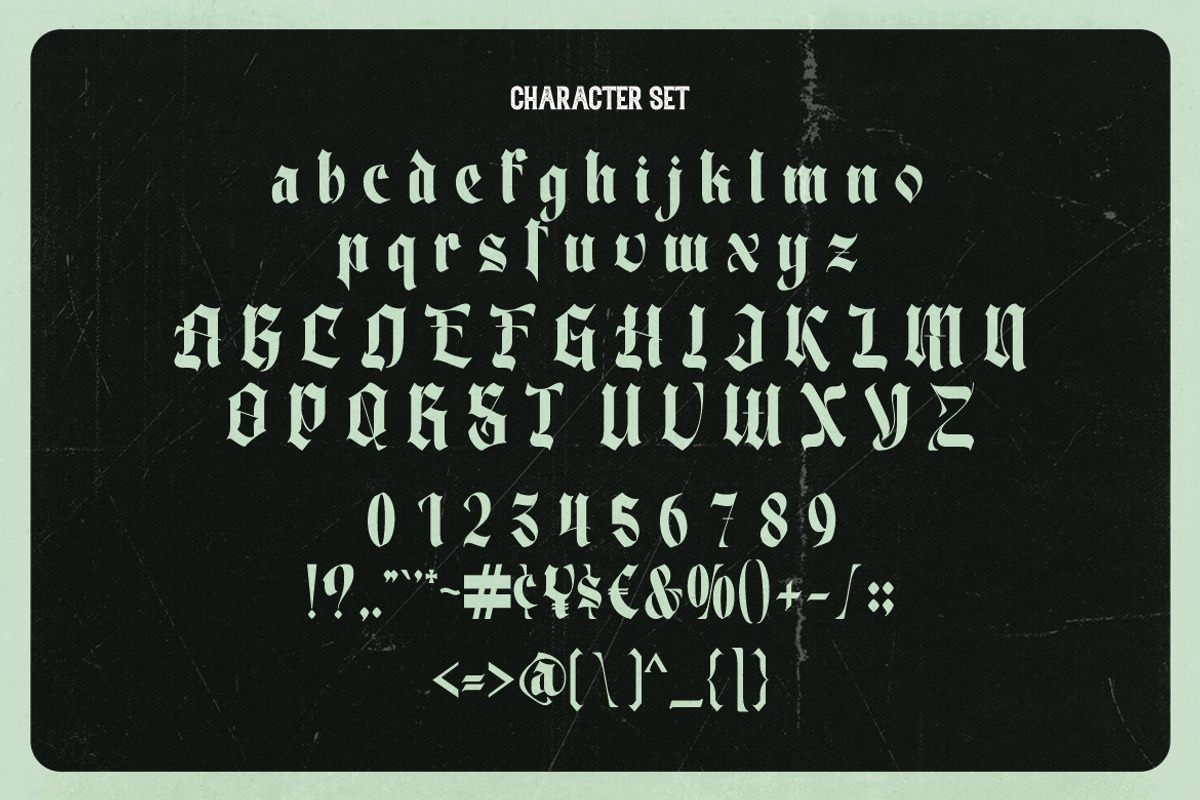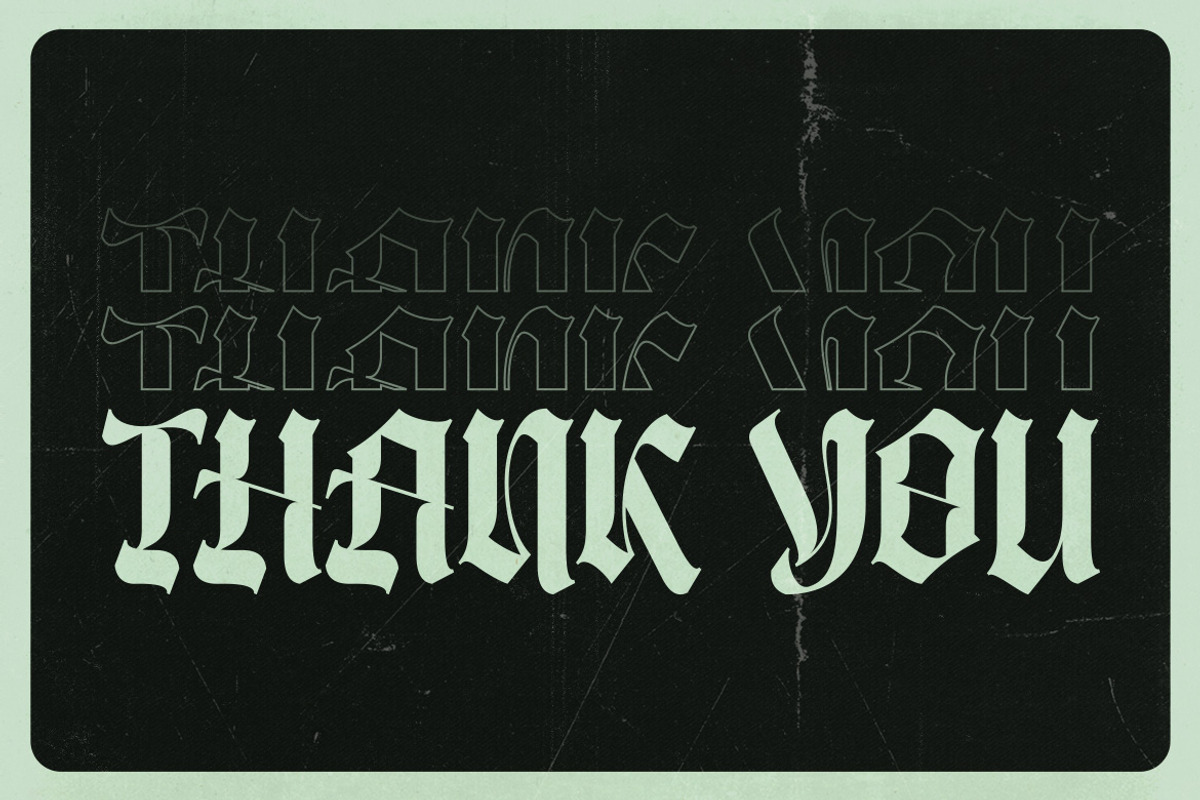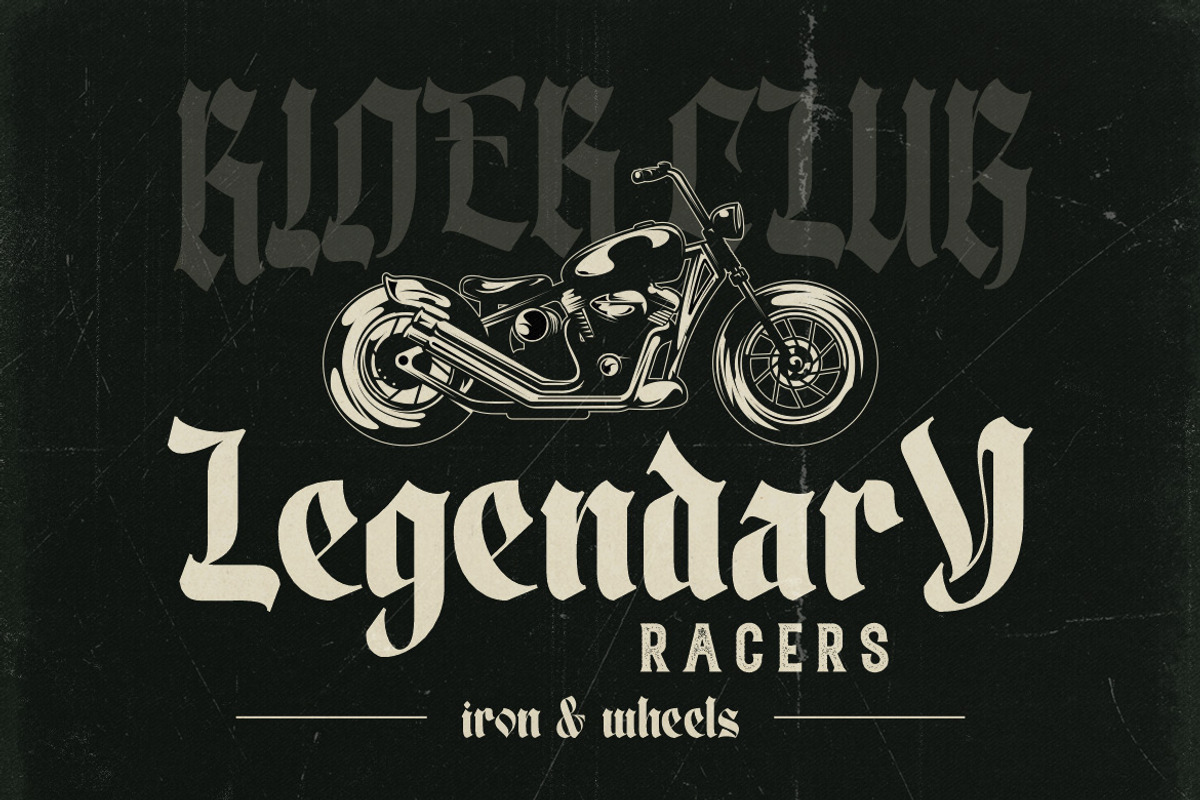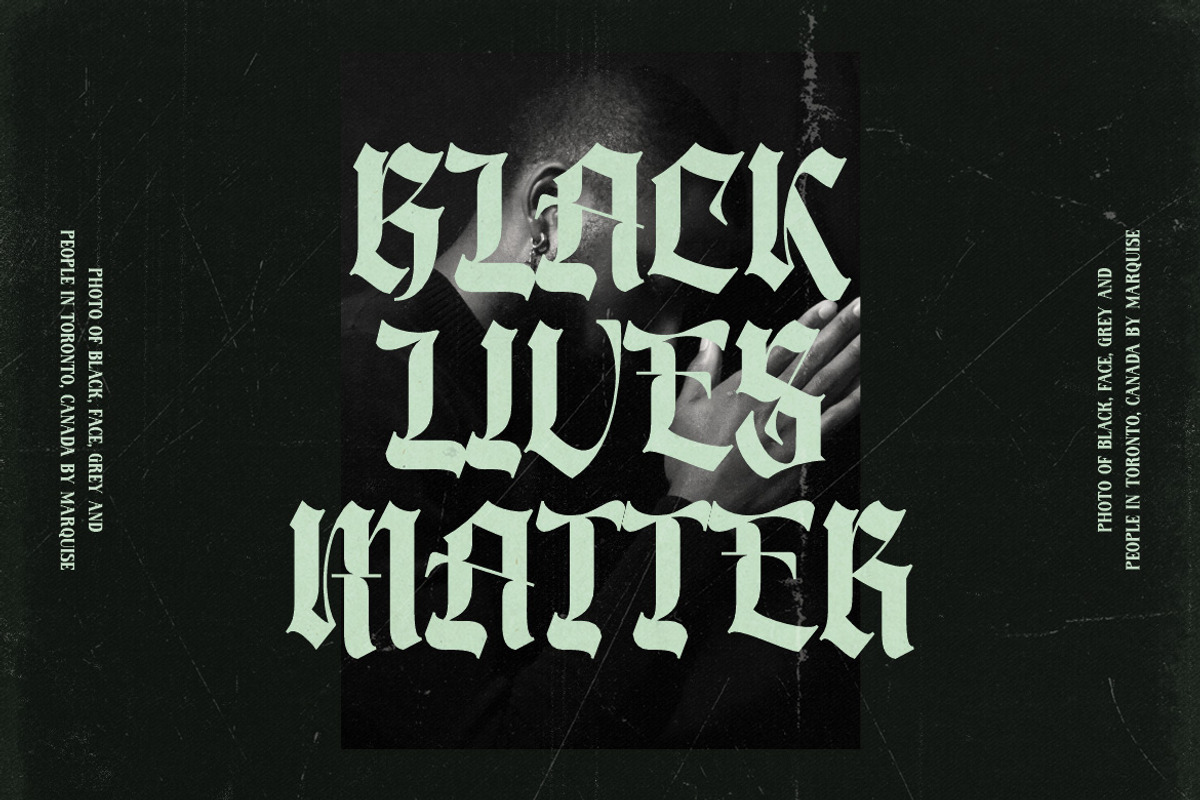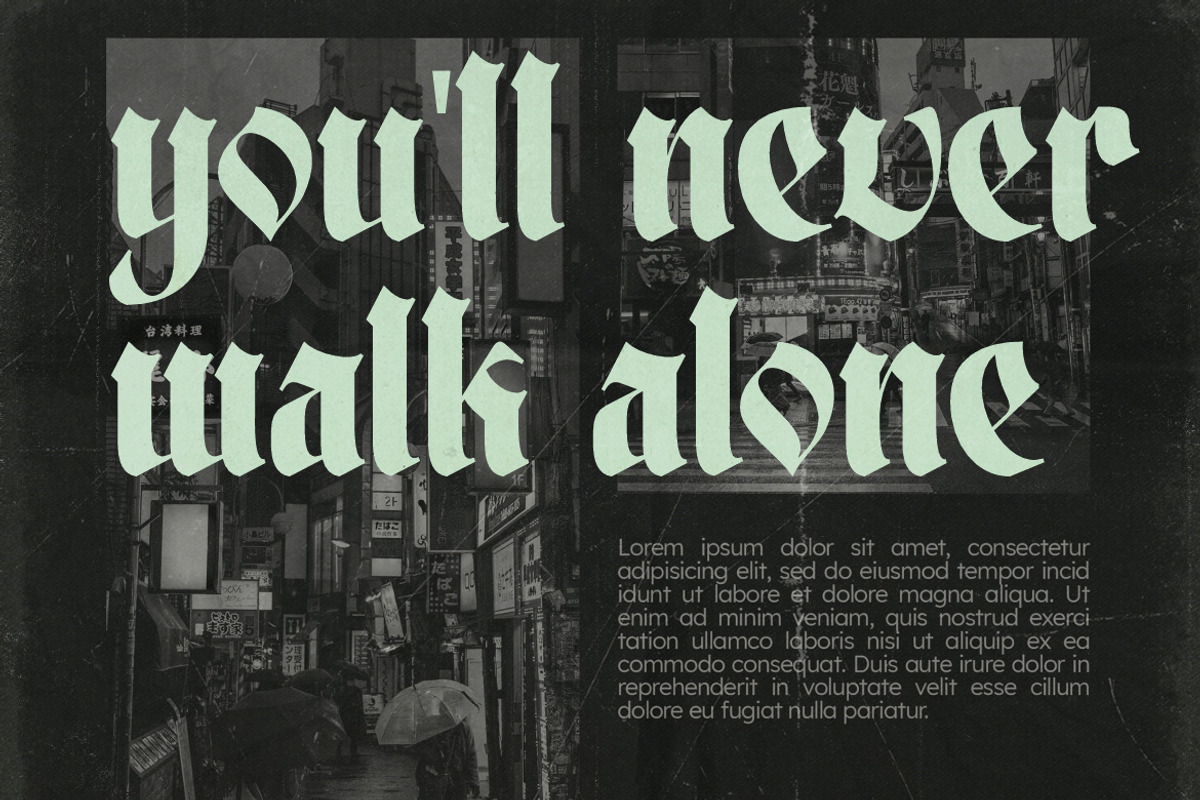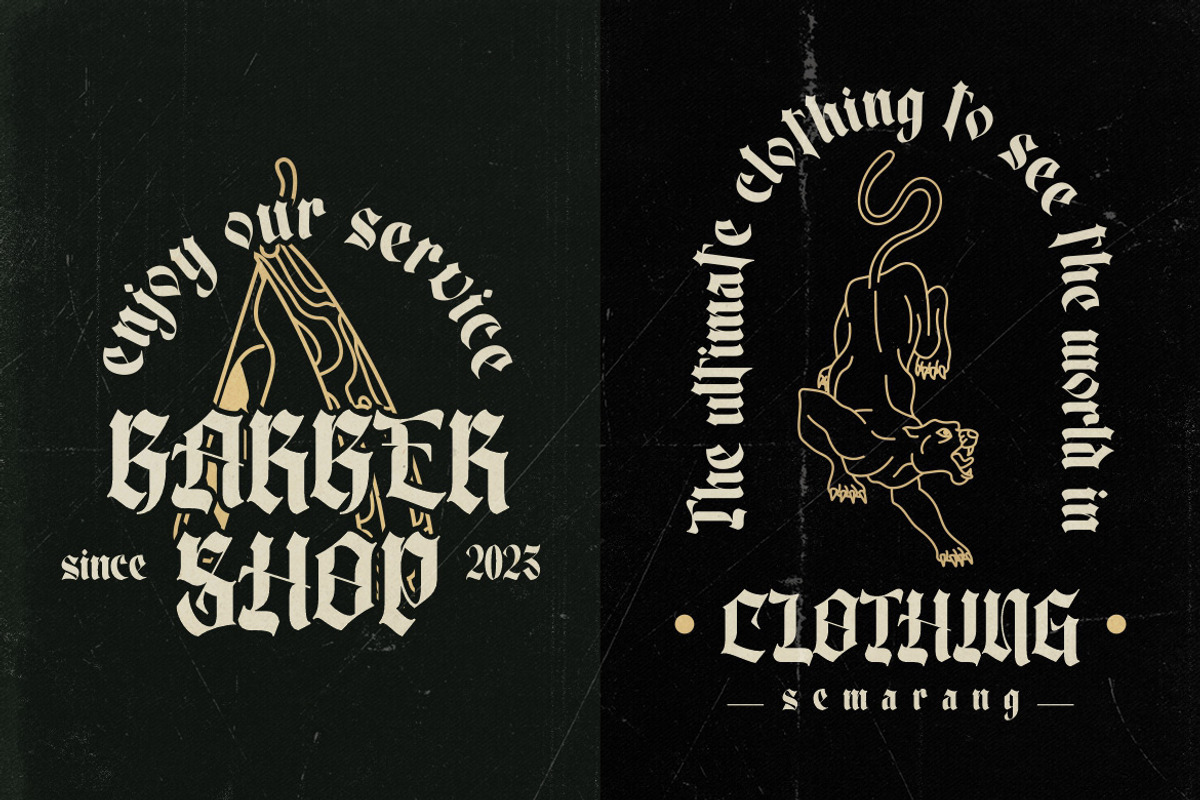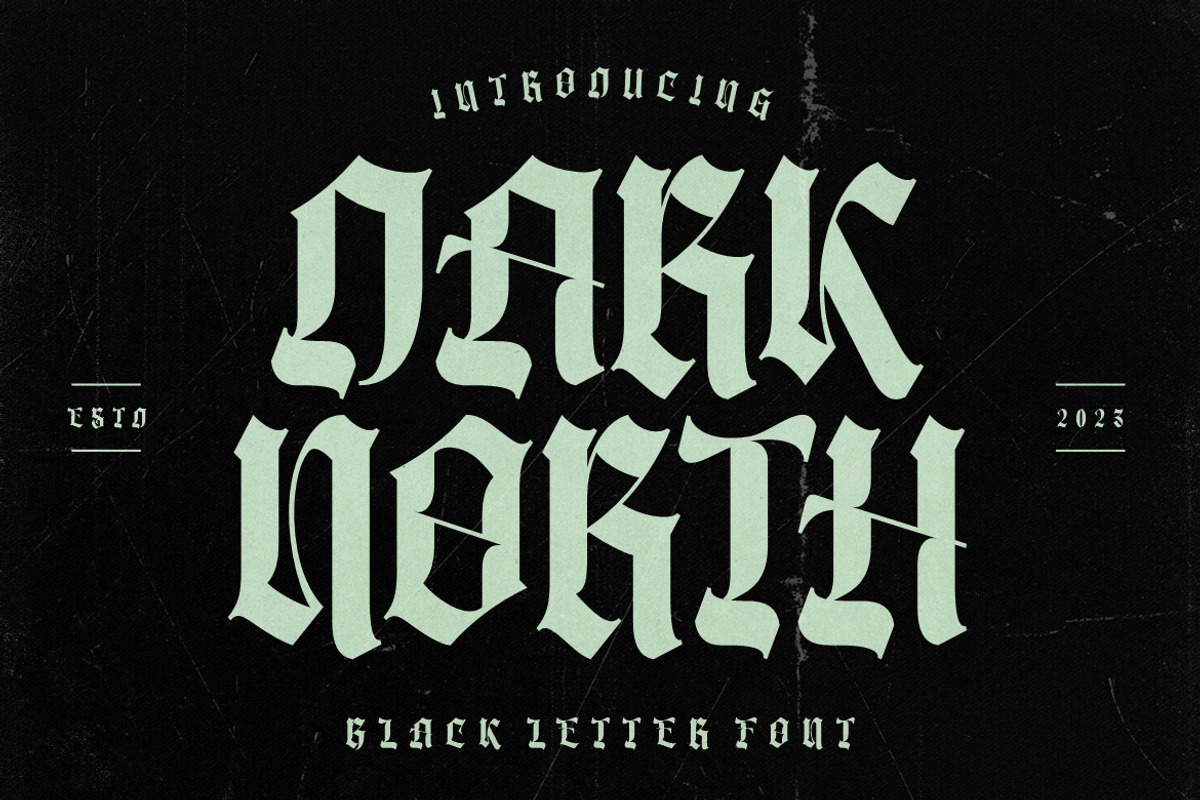
Dark North - Blackletter Font
Dark North Font is a modern and casual display font with an incredibly friendly feel. This font comes with a blackletter feel but has a clean and modern style. Comes with a full uppercase, lowercase, numbers, punctuation and with extensive language support, it’s going to be a very usable addition to your project. Whether you’re looking for fonts for various projects like logos, blog titles, branding, packaging, barber shop, fashion, invitations, greeting cards, posters, business cards, clothing, letters, stationery, and more Dark North Font will turn any creative idea into a true piece of art!